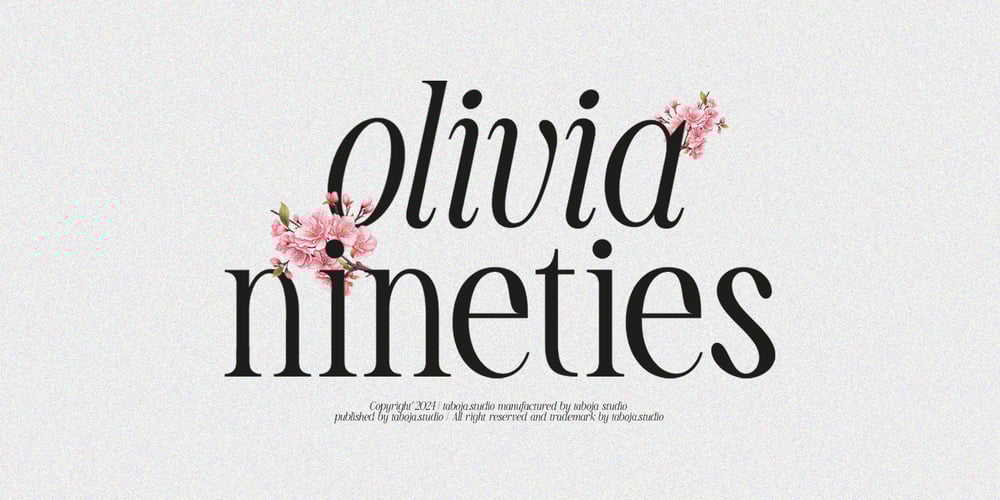
TBJ Olivia Nineties Elegant Serif Font Family was designed by Yusilo Oktaprima Ardani and published by Taboja Studio. TBJ Olivia Nineties Elegant Serif contains 2 styles and family package options. Olivia Nineties Regular Italic is a font that exudes retro charm with accents reminiscent of 1990s handwriting style. With its light yet distinct slant, this font adds a unique and captivating touch to your designs. Each letter is meticulously designed to provide a distinctive and engaging impression, making text written with Olivia Nineties Regular Italic come alive and vibrant.The typographic style presented by Olivia Nineties Regular Italic radiates warmth and nostalgia, suitable for design projects aiming to highlight retro or vintage nuances. With a friendly and enthusiastic impression, this font is suitable for use in various contexts such as poster design, logos, product packaging, or other graphic designs.The intriguing typographic characteristics of Olivia Nineties Regular Italic make it the perfect choice to add a creative and unique touch to any design project. With its ability to attract attention and provide a different impression, this font is an ideal choice for those seeking bold and captivating designs.Olivia Nineties Font Features: Regular Uppercase And Lowercase Alternates And Ligatures Numerals & Punctuation Accented characters Multilingual Support Unicode PUA Encoded We highly recommend using a program that supports OpenType features and Glyphs panels such as Adobe Illustrator, Adobe Photoshop CC, Adobe Indesign, or CorelDraw, so you can see and access all Glyph variations.While using this product, if you encounter any problem or spot something we may have missed, please don’t hesitate to drop us a message. We’d love to hear your feedbacks in order to further fine-tune our products.Stay creative and have a wonderful day.